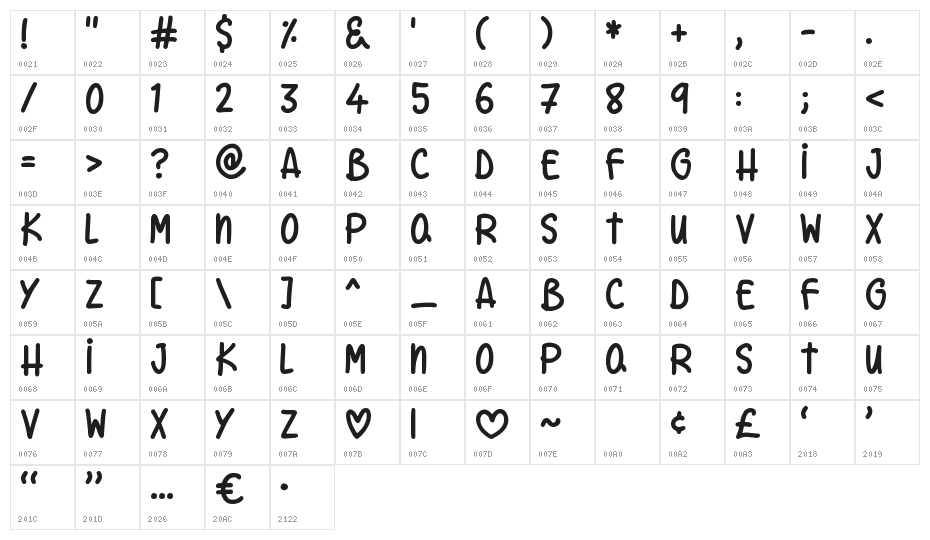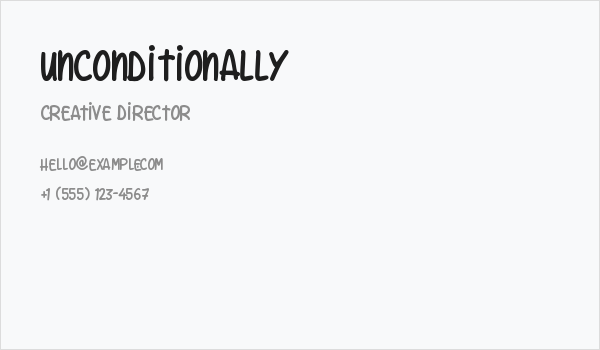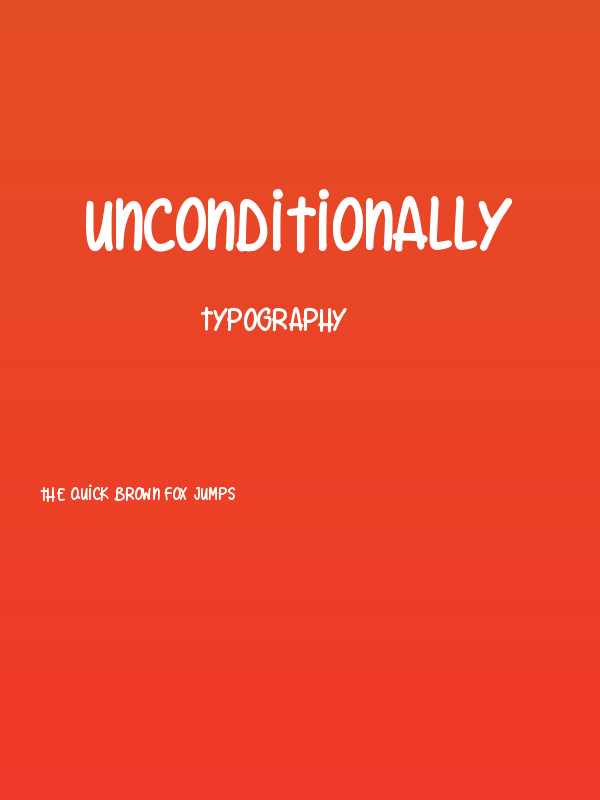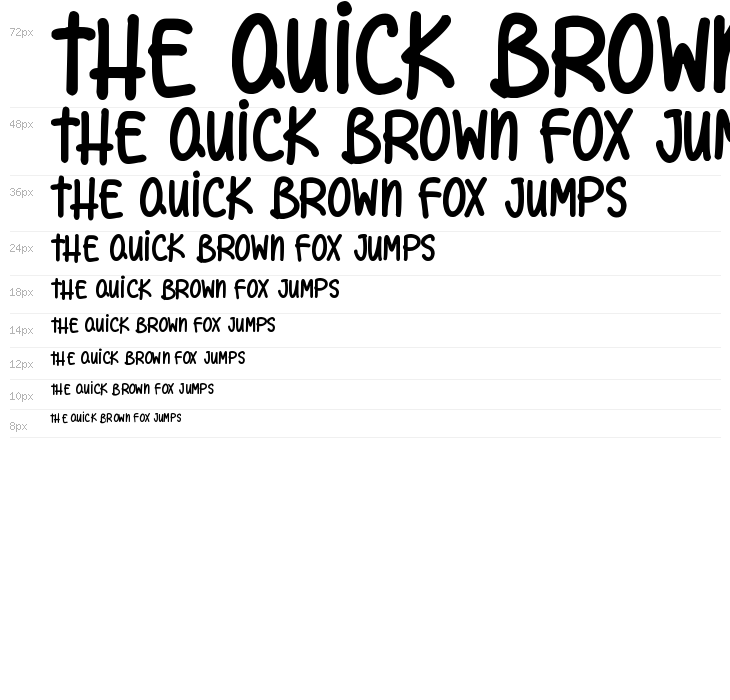
Unconditionally Font
Unconditionally Description
This playful and bold font features a handwritten style with rounded edges and a casual, friendly appearance. The letters are slightly irregular, adding to the charm and uniqueness of the typeface. Uppercase and lowercase characters are well-balanced, maintaining a consistent flow throughout. The numbers and special characters are designed to match the overall style, ensuring a cohesive look. This font is perfect for projects that require a personal touch, such as greeting cards, children's books, or playful branding.
| Overall Style | Playful |
| Use Case | Logos, Headlines, Invitations |
| Proposed Projects | Ideal for greeting cards, children's books, playful branding, and casual invitations. |